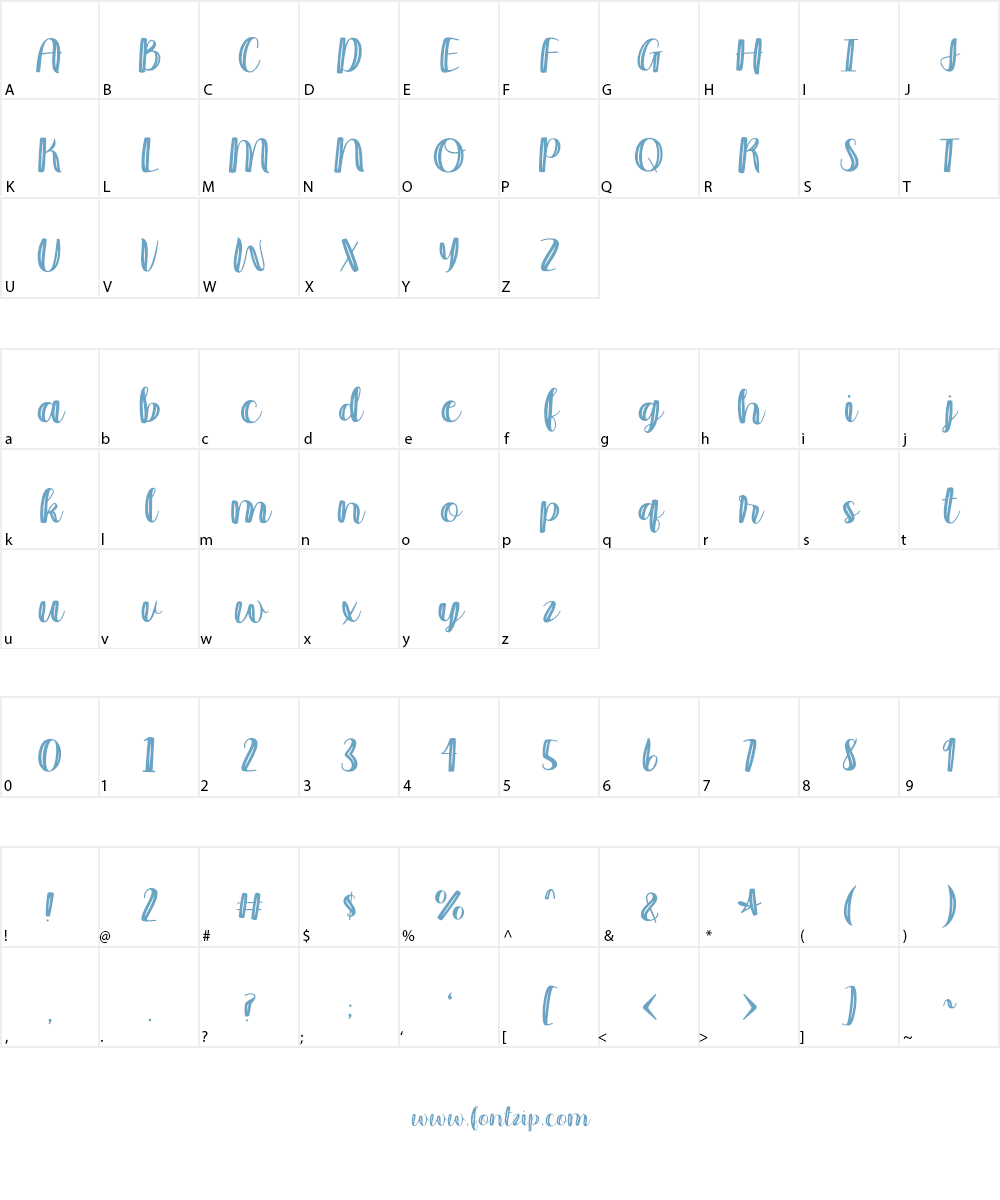
Moonbright Inline is a cute, chunky inline script font. Includes most Latin-based foreign language support (see images for accented letters included). Great for headlines or decor!